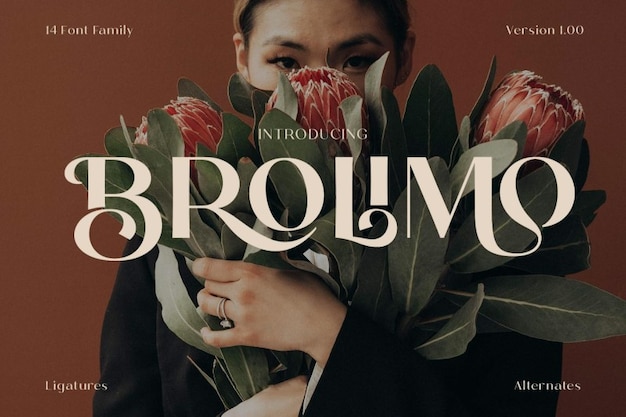
Brolimo
Brolimo Font
The Brolimo font is the perfect example of a vintage and stylish typeface. Its retro look will definitely make your project stand out! Due to its display usage, it is perfect for big formats like posters. Download it now and start creating!